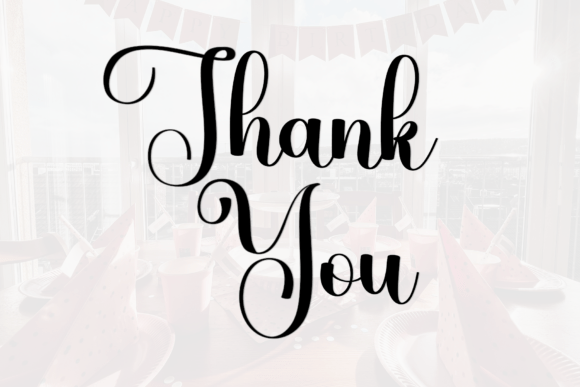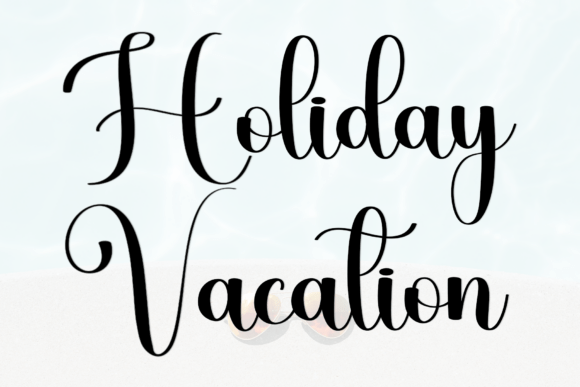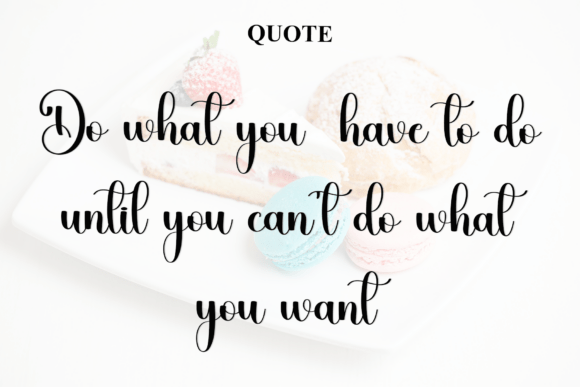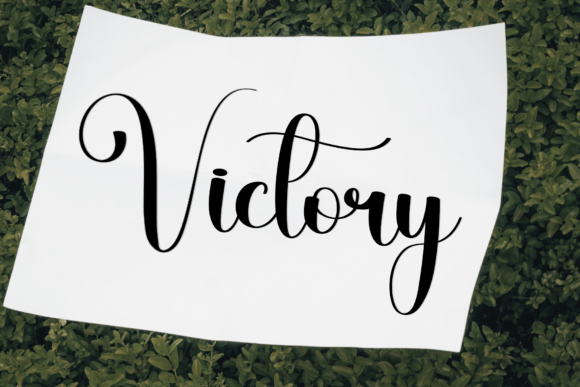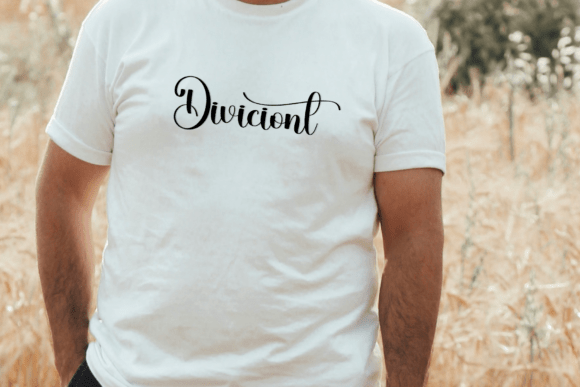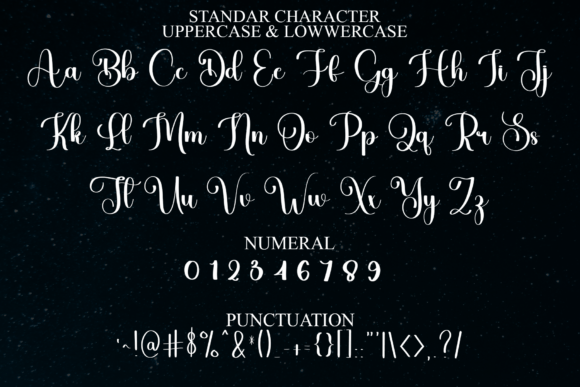
Introducing Birthday Vacation Font: Elevate Your Designs with a Unique and Eye-Catching Style
Are you tired of using the same old fonts for your design projects? Look no further! Birthday Vacation Font is a beautiful and eye-catching font that is sure to take your creations to the next level. Designed with a soft, unique touch, this font is perfect for designers, crafters, and creative professionals looking to add a special something to their work.
What Makes Birthday Vacation Font Special?
Birthday Vacation Font boasts distinctive strokes that give it a special character, making it both meaningful and versatile for future use. Its unique design ensures that your projects stand out from the crowd, making it ideal for a wide range of applications, from design projects and crafts to other creative works.
Key Features of Birthday Vacation Font
- Unique and Eye-Catching Design: The font’s soft and distinctive strokes make it perfect for designs that require a special touch.
- Versatile and Meaningful: The font’s unique character makes it suitable for a wide range of projects, from crafts to professional design work.
- Variety of Characters: Birthday Vacation Font comes with a range of characters, ensuring that you have everything you need to create stunning designs.
Whether you’re a professional designer or a crafter looking to add a personal touch to your projects, Birthday Vacation Font is the perfect choice. Its natural font style and unique character make it ideal for a wide range of products, from digital designs to handmade crafts.
Use Birthday Vacation Font for:
- Design Projects: Use the font to create stunning designs for clients or personal projects.
- Crafts: Add a personal touch to your handmade crafts, such as cards, invitations, and DIY projects.
- Digital Products: Use the font to create eye-catching digital products, such as printables, planners, and social media graphics.
Benefits of Using Birthday Vacation Font
By using Birthday Vacation Font, you can:
- Enhance Your Designs: The font’s unique character and soft design make it perfect for creating visually appealing designs.
- Stand Out from the Crowd: The font’s distinctive strokes ensure that your designs stand out from the crowd.
- Appeal to a Wide Audience: The font’s natural style and versatility make it suitable for a wide range of audiences and creative fields.